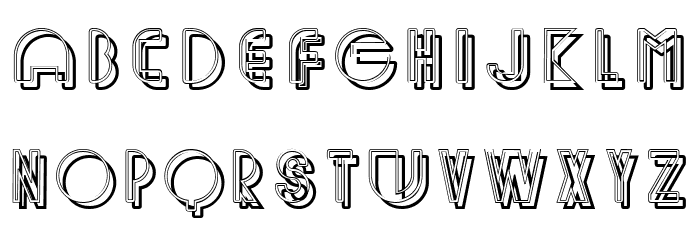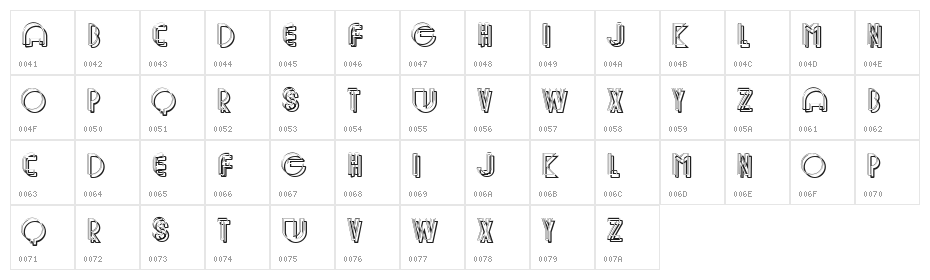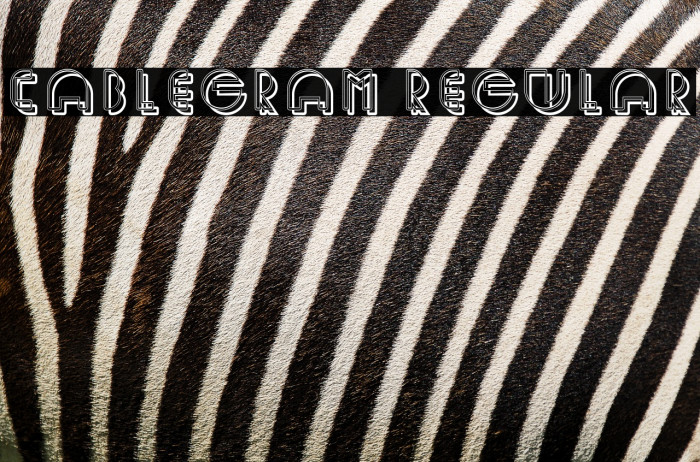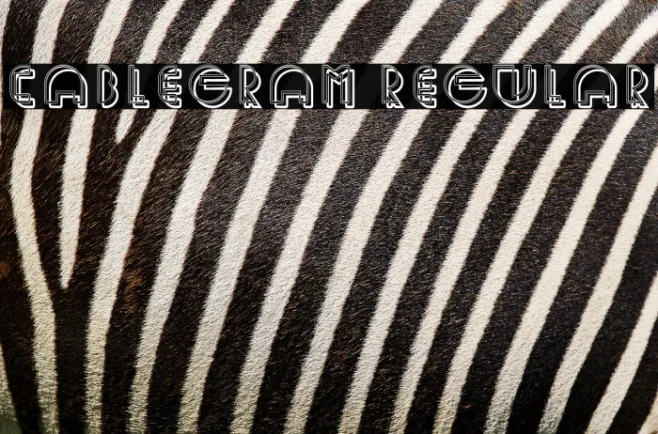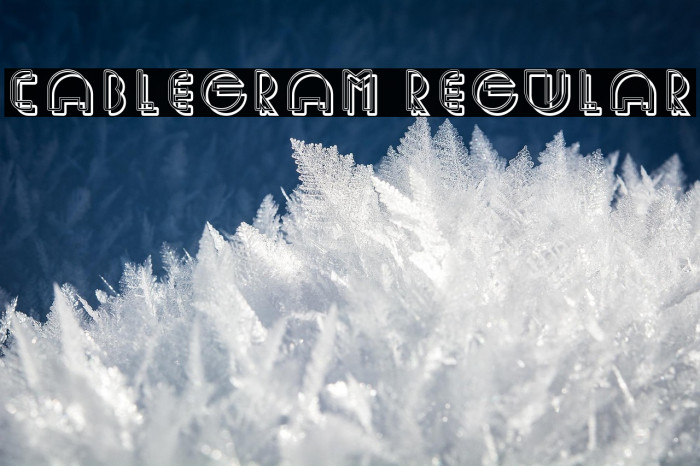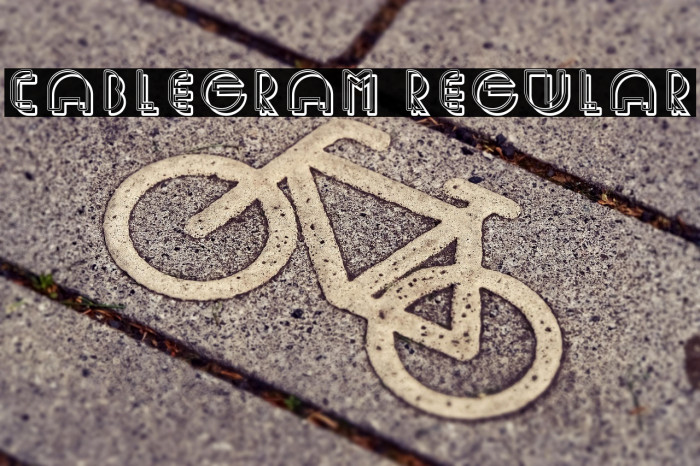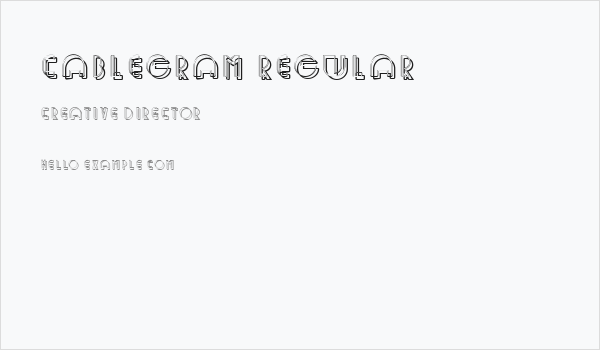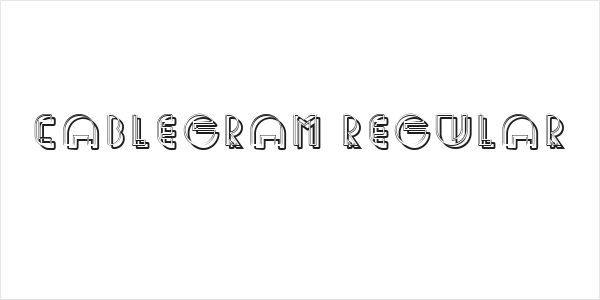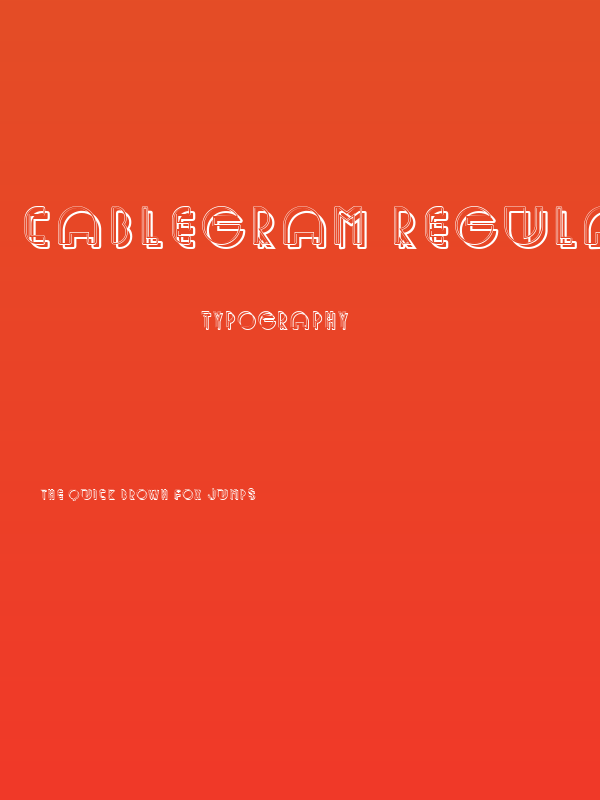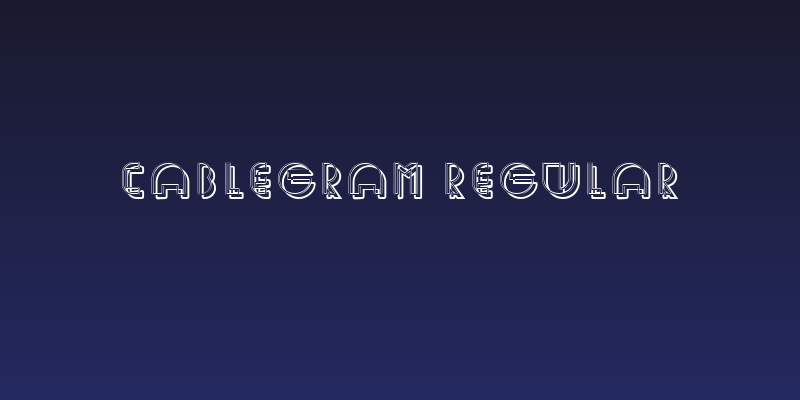
Cablegram Regular Font
Cablegram Regular Description
This font features a bold, geometric design with a distinct three-dimensional effect. Each character is crafted with a combination of solid and outlined strokes, creating a layered appearance that adds depth and visual interest. The uppercase letters are particularly striking, with angular lines and sharp corners that give them a modern, industrial feel. The lowercase letters maintain the same stylistic elements, ensuring consistency across the typeface. The numerals and special characters are designed with the same attention to detail, making them suitable for a variety of design applications. The overall style is both futuristic and retro, making it versatile for creative projects.
| Overall Style | Modern, Futuristic |
| Proposed Projects | Ideal for posters, logos, branding, and any design project that requires a modern, eye-catching typeface. |